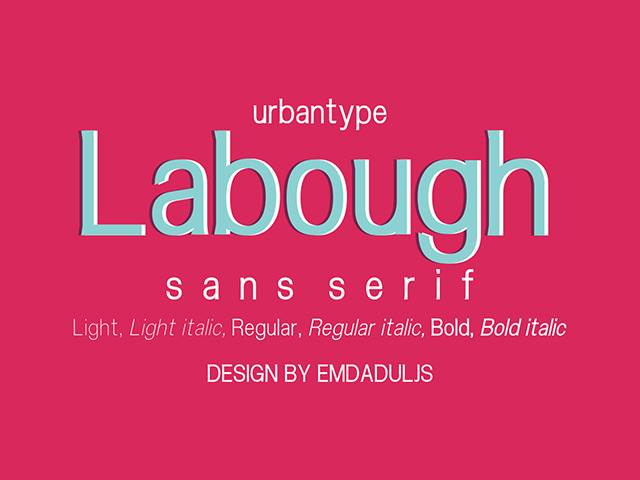
Labough Family Fonts
Labough is the sans-serif family type face
It’s great type face, work for your printing template project and also presentation display type.